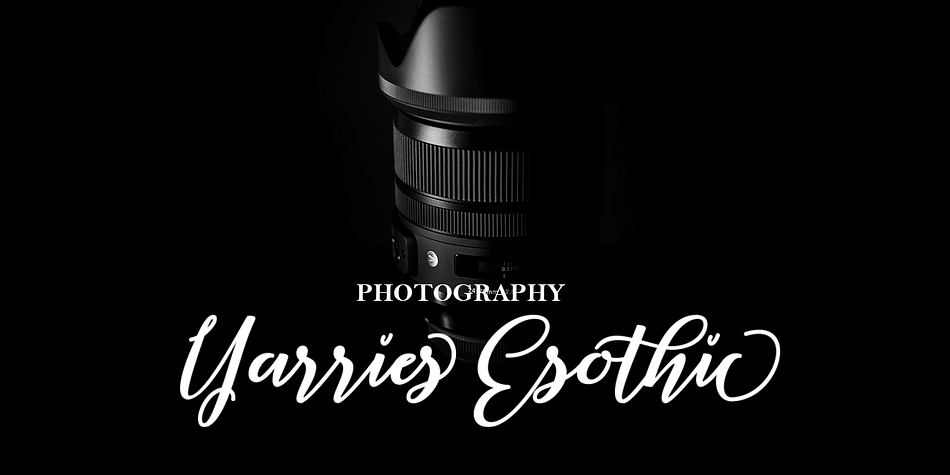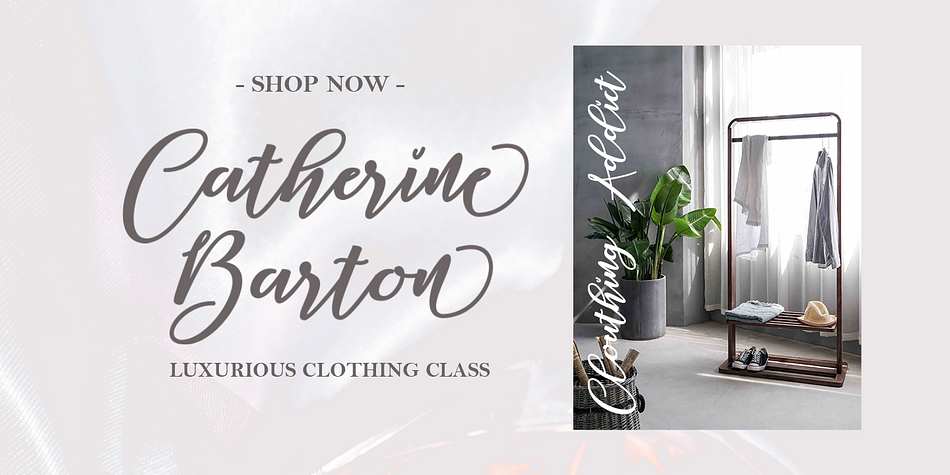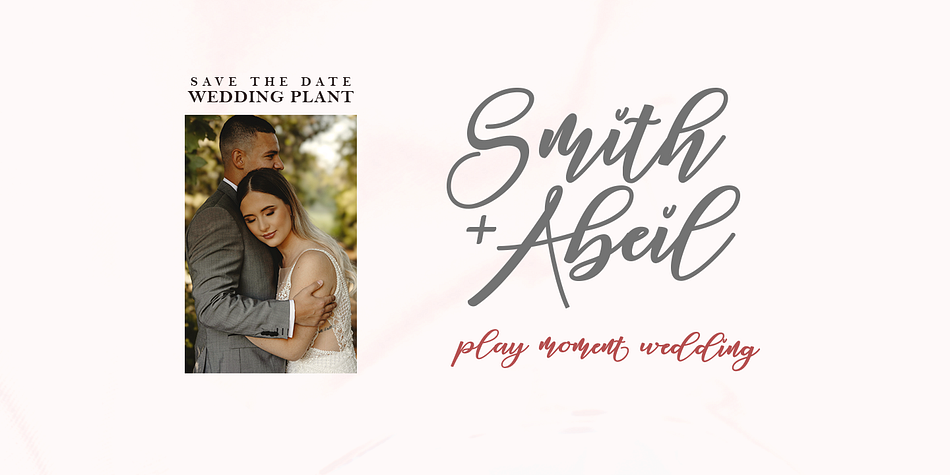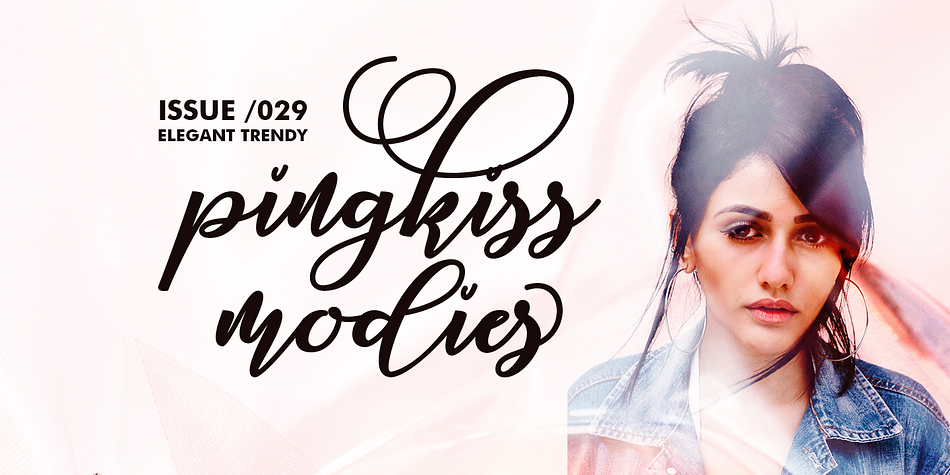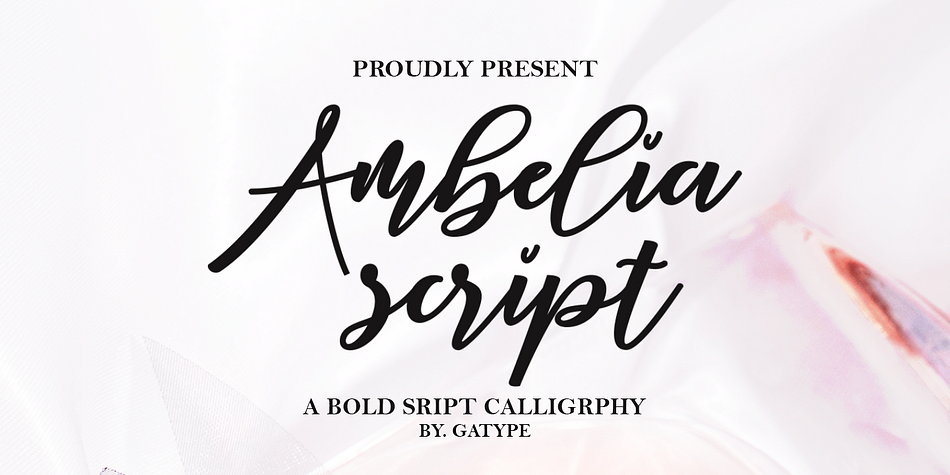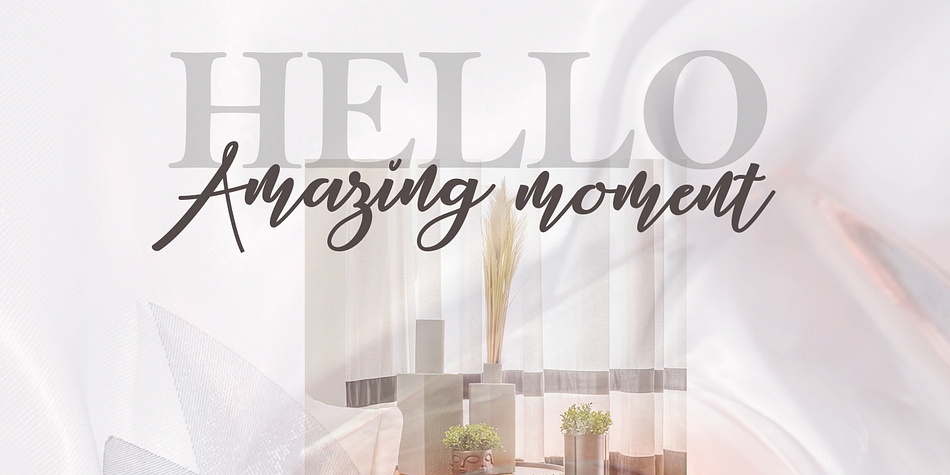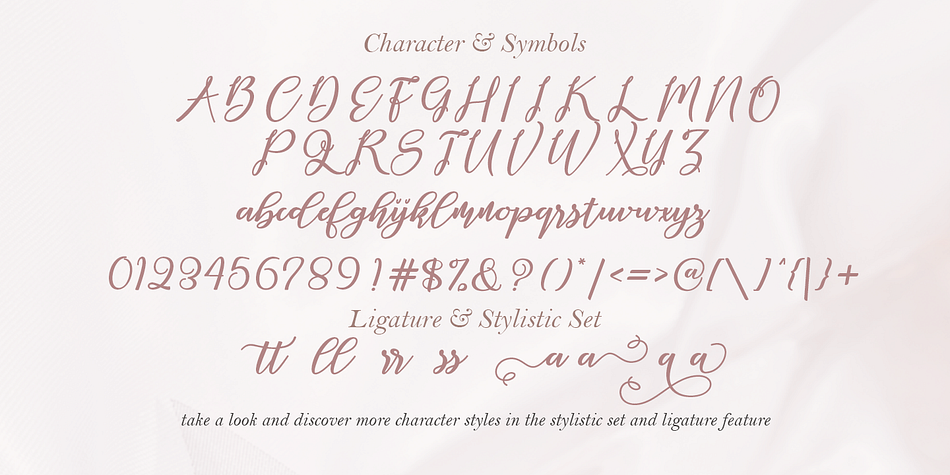
Ambelia
Ambelia is a brush script font family published by Gatype.
Ambelia Script is a natural handwritten font, it is perfect for logos, invitations, stationery, wedding designs, social media posts, advertisements, product packaging, product design, labels, photography, watermarks, special events or anything else.
Ambelia Script comes with a full set of uppercase and lowercase letters, lowercase strokes, multilingual symbols, numbers, punctuation and liature.